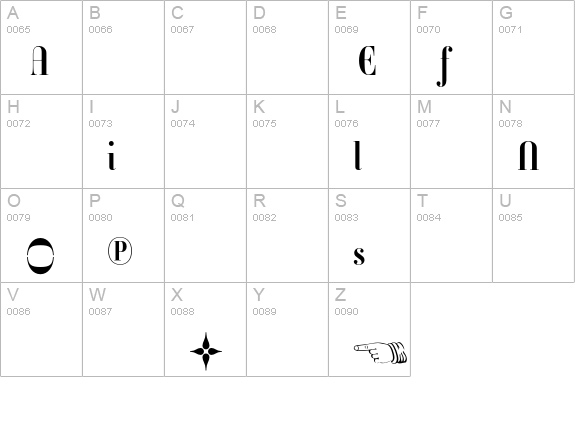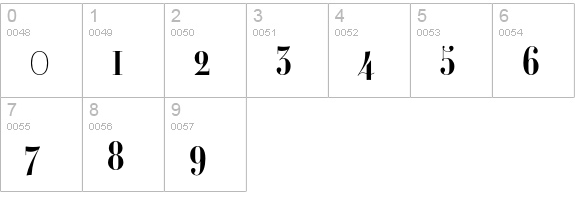
Ambroise Firmin Alternates Demi is a sub-bold, structured variant in the Ambroise typeface family \xE2\x80\x94 well suited to sub-headlines and emphasised passages.
Ambroise Firmin Alternates Demi font is a stylish and versatile typeface that exudes modern elegance and sophistication. With its clean lines and bold presence, this font is perfect for creating eye-catching designs that demand attention. The alternate versions of each letter add a unique flair to your projects, making them stand out from the crowd. Best of all, Ambroise Firmin Alternates Demi font is available for free download at FontsMarket.com. Whether you're working on a branding project, designing a poster, or crafting a logo, this font is sure to elevate your work to the next level. Don't miss out on the opportunity to enhance your designs with this stunning typeface – download Ambroise Firmin Alternates Demi now and let your creativity shine!